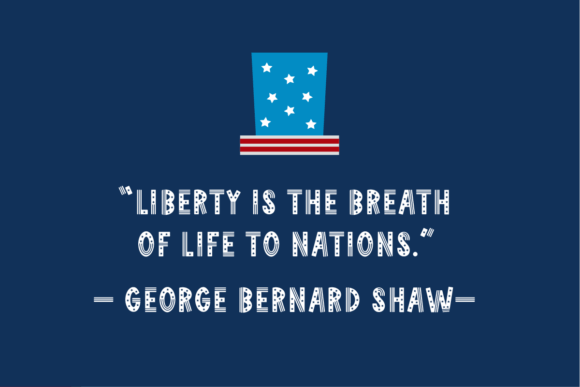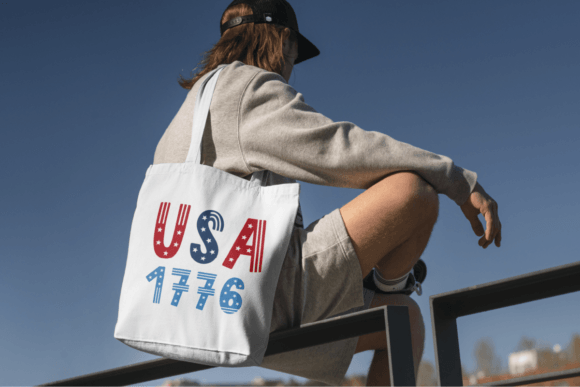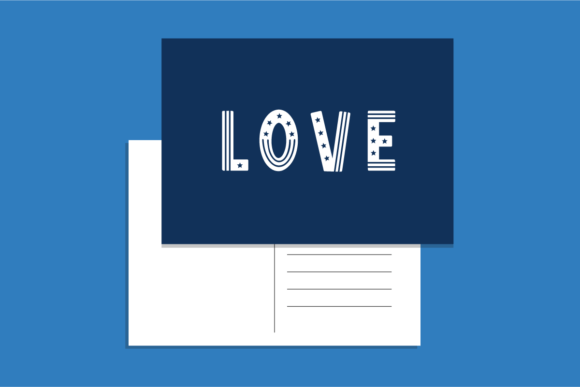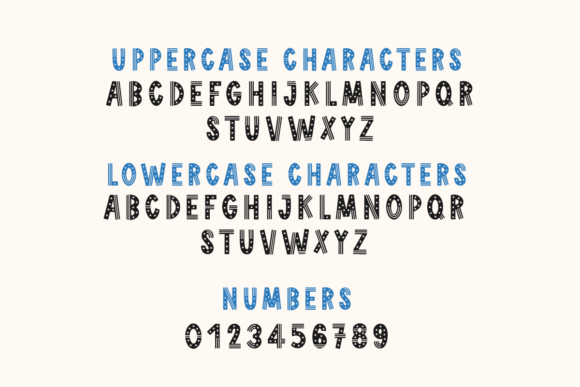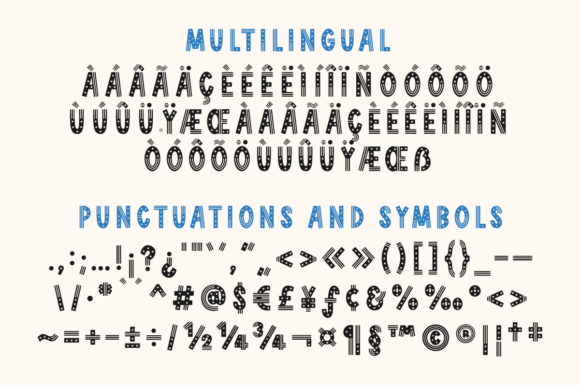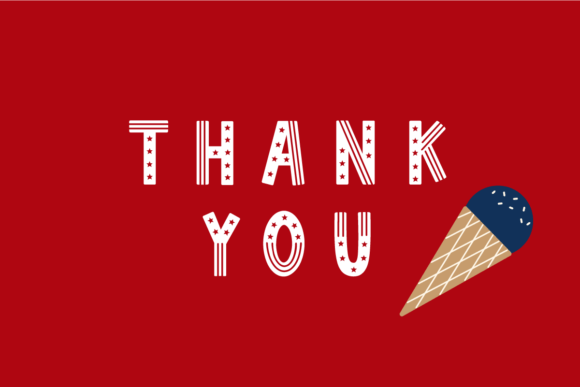
4th of July Font
4TH of July is a cute decorative font that is inspired by the United States flag. Perfect for projects that celebrate American history or events such as Independence Day, Veterans Day, or Memorial Day. You can use this font for creating shirts, designs, invitation cards, mugs, stickers, playful quotes, creating posters, logos, greeting cards, packaging, decorating the illustration and so much more!